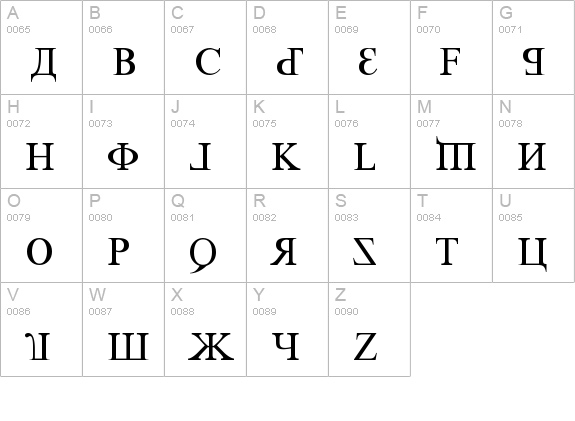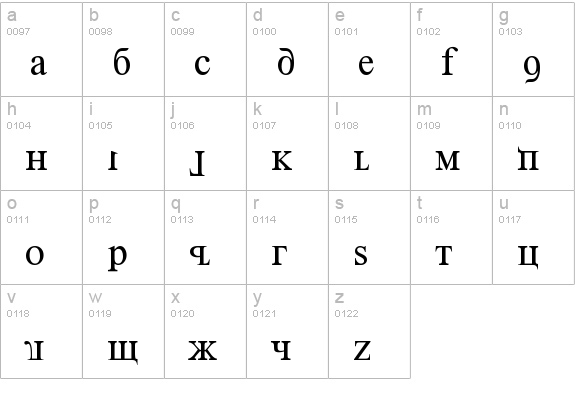
Kremlin Premier Font Details
Introducing Kremlin Premier Font, a beautifully crafted typeface that exudes elegance and sophistication. This stunning font captures the essence of refined design with its sleek lines and intricate details. Every letter of Kremlin Premier is meticulously designed to provide a sense of timeless beauty and professionalism. With its versatile nature, Kremlin Premier can be used for a wide range of projects, from branding and packaging to editorial and signage. Its clean and clear letterforms ensure legibility even at small sizes, making it a perfect choice for both print and digital applications. One of the standout features of Kremlin Premier Font is that it is available for free. Yes, you read that right! This exceptional font can be freely downloaded at FontsMarket.com, allowing designers and creatives to access its beauty without any cost. This generosity opens up a world of possibilities, enabling everyone to elevate their designs without breaking the bank. Kremlin Premier Font truly stands out from the crowd with its exceptional quality and effortless sophistication. Whether you're working on a high-end branding project or simply want to add a touch of class to your designs, this font is sure to impress. Don't miss out on this incredible opportunity to enhance your creative arsenal – download Kremlin Premier Font for free at FontsMarket.com today!